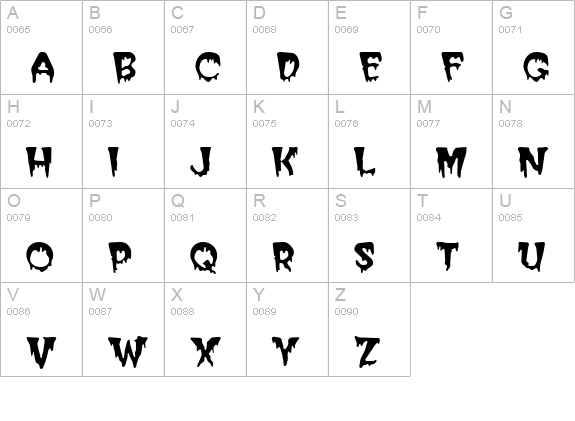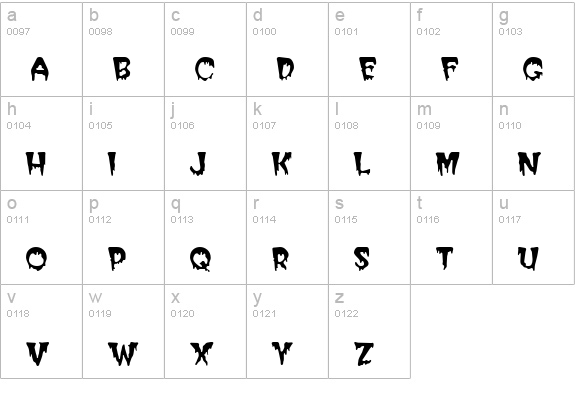
Gremlin Font Details
The Gremlin font is a whimsical and playful typeface that exudes a mischievous charm. With its quirky shapes and unique characteristics, Gremlin is sure to add a touch of fun to any project. Whether you're designing a children's book, creating a party invitation, or working on a creative branding project, Gremlin will bring a sense of lightheartedness and creativity to your work. Best of all, Gremlin is available for free download at FontsMarket.com. This means you can easily access this delightful font and incorporate it into your designs without any cost. Don't miss out on the opportunity to add a touch of whimsy to your projects with the Gremlin font - download it for free today!